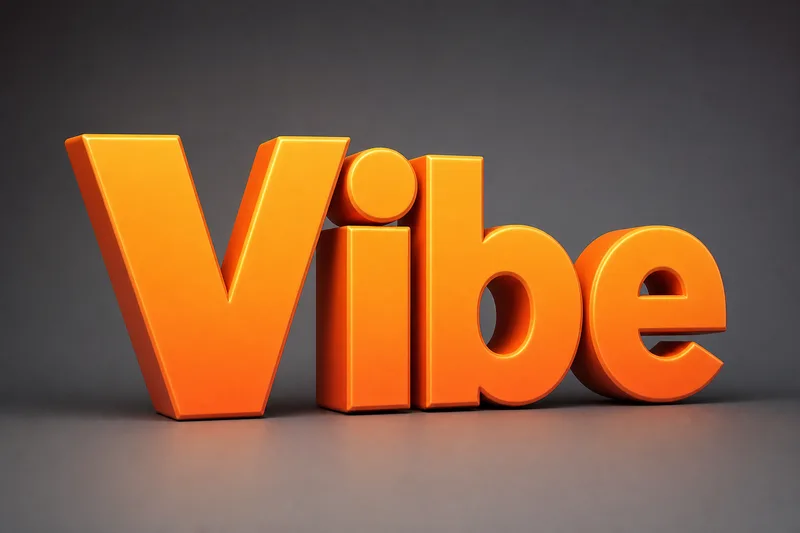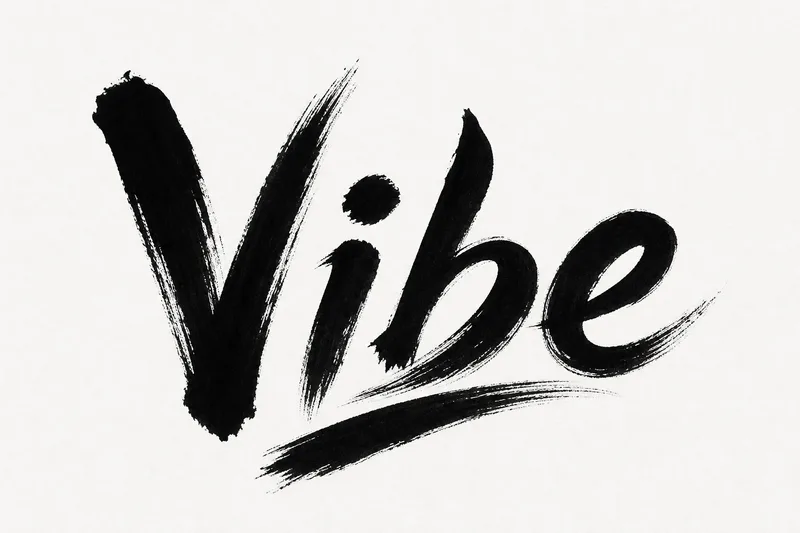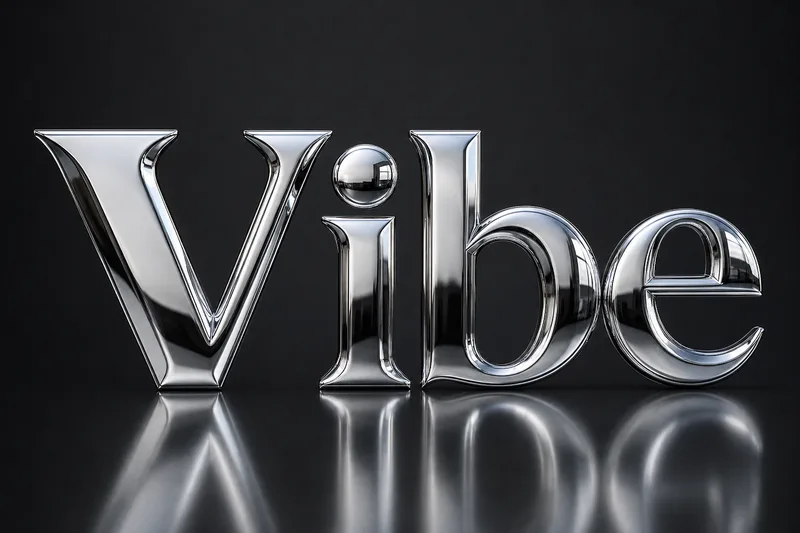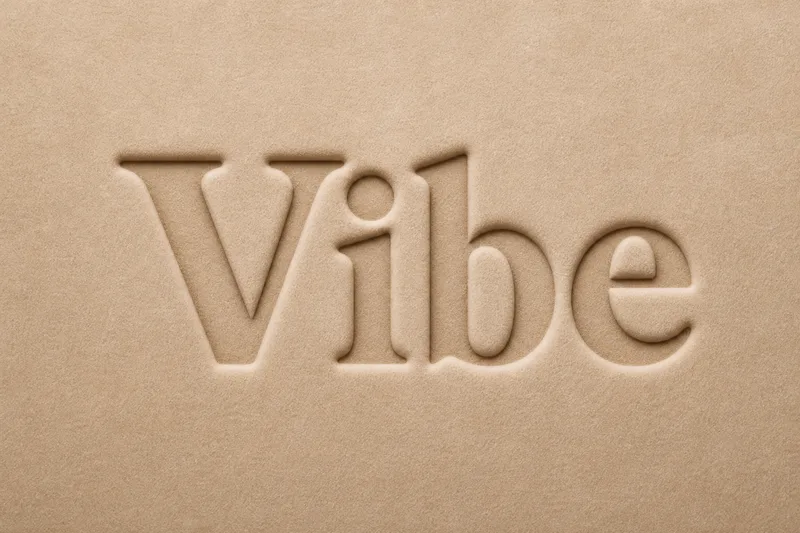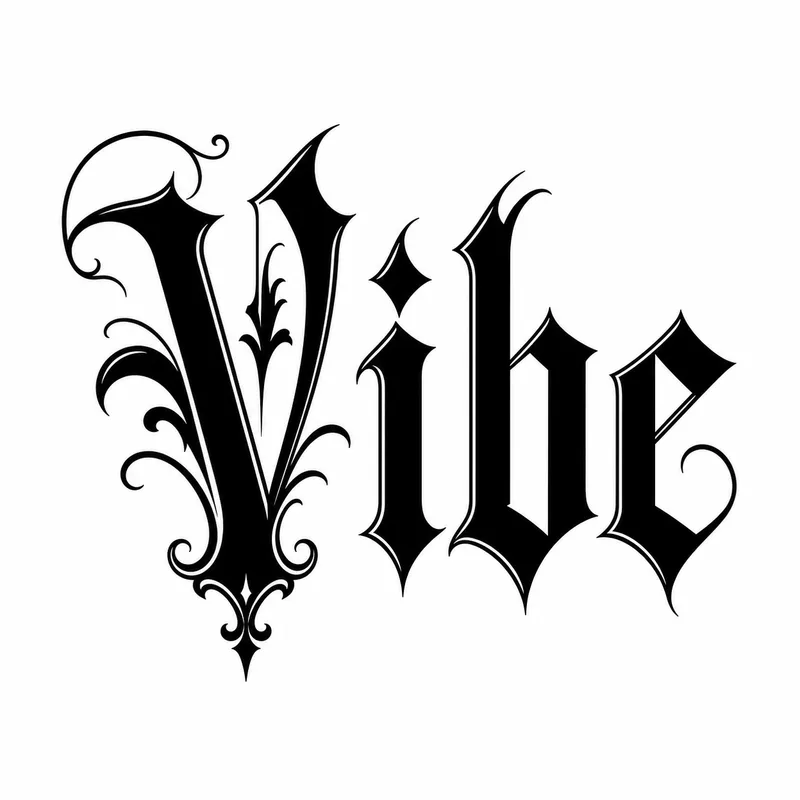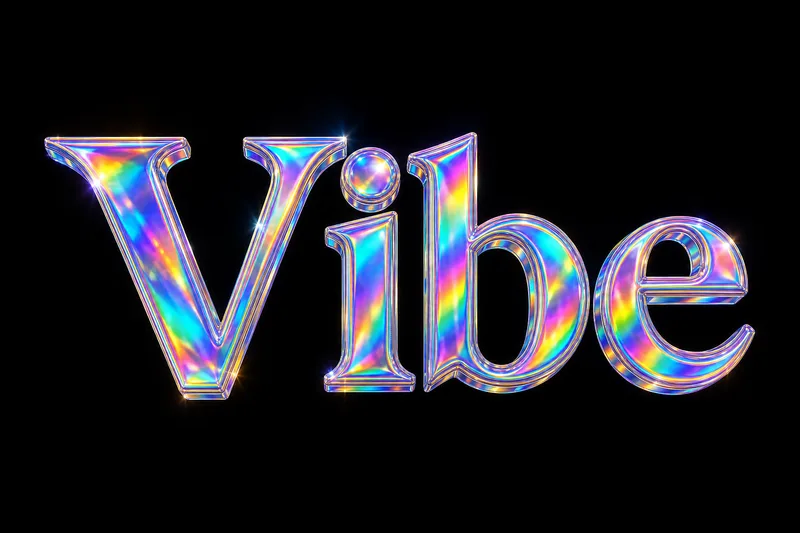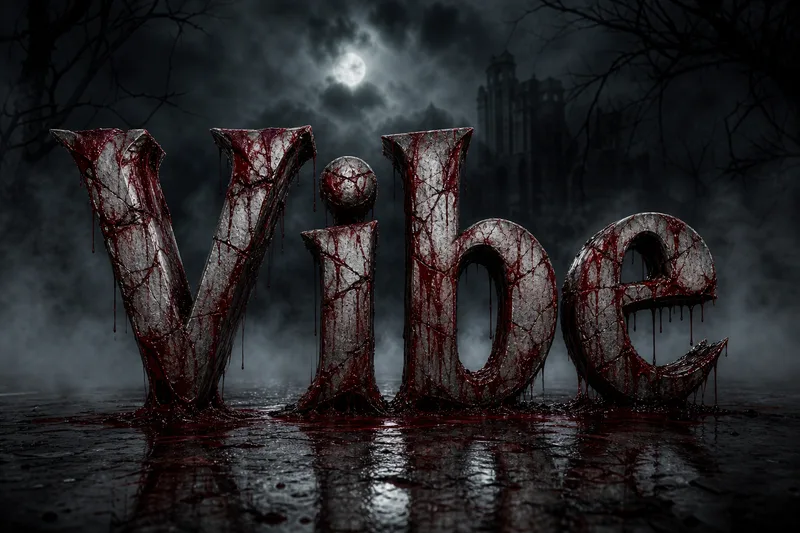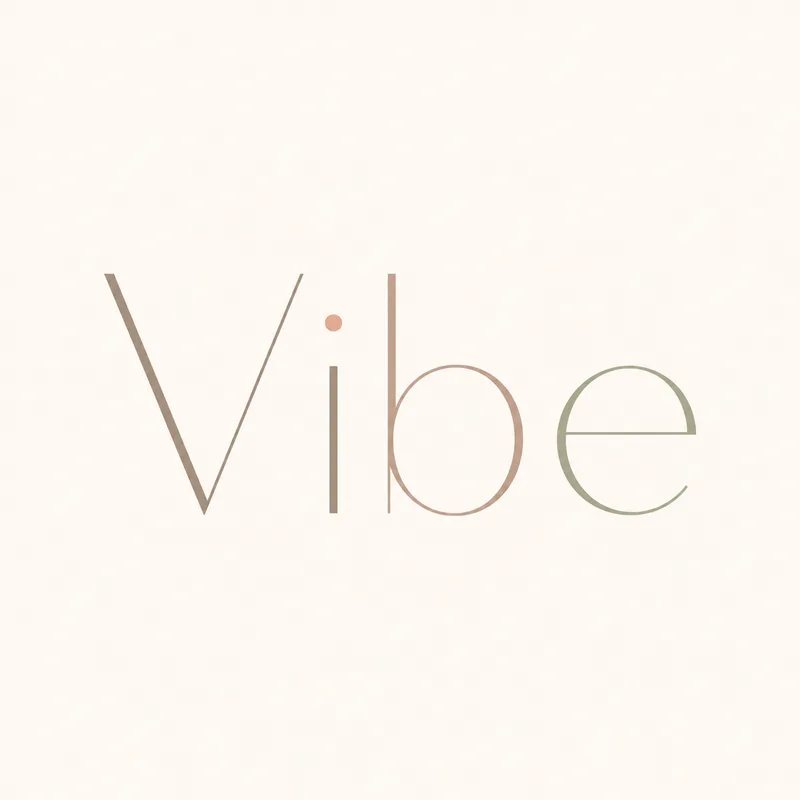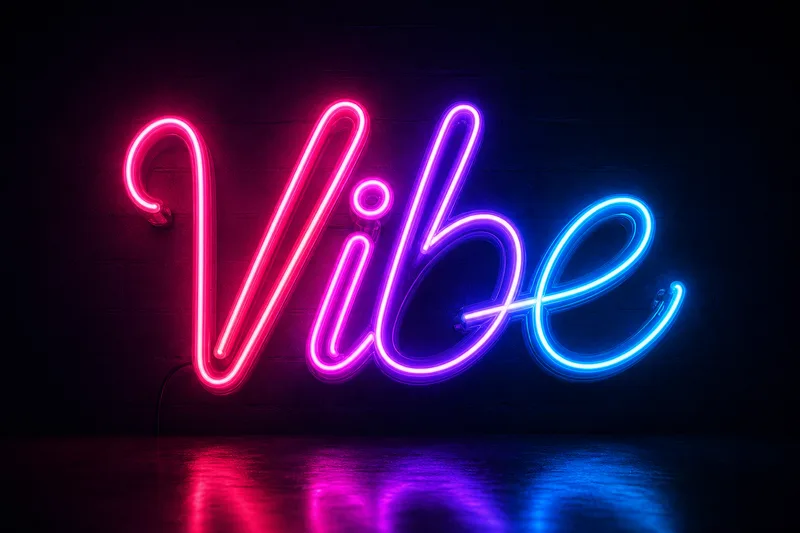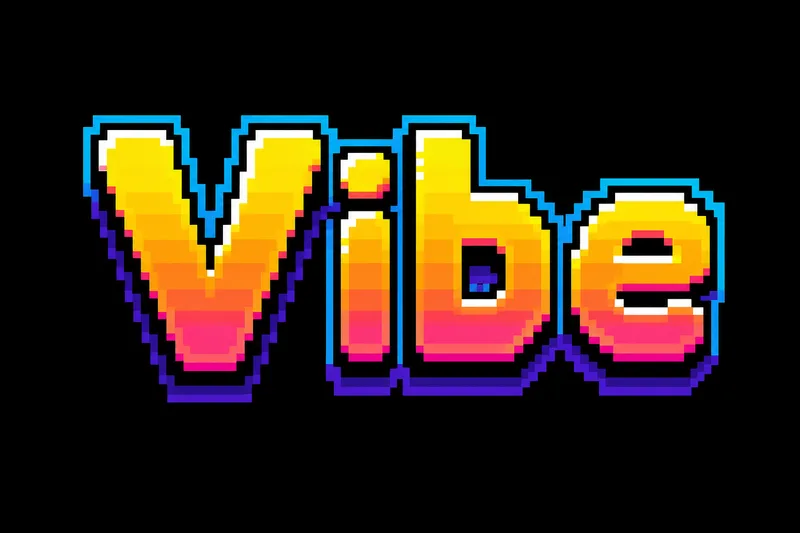
Fonts Made With This Generator
A handful of looks straight from the font generator, each one rendered from plain text. Type your own word and any of these styles is a single click away — tap a preview to see it full size.
Tattoo Lettering
Bold tattoo-style script rendered from plain text — a favorite for body-art mockups, band merch and gritty logos.
Calligraphy
Elegant calligraphy lettering for wedding invitations, quote prints and premium logos, generated in seconds.
Chrome 3D
Glossy chrome text with realistic reflections and depth — the Photoshop look without opening Photoshop.
Neon Glow
Bright neon-glow lettering that pops on dark thumbnails, posters and event flyers.
Graffiti
Street-style graffiti font for album covers, stickers, zines and gaming overlays.
Y2K Chrome
Retro Y2K chrome aesthetic with that early-2000s shine — perfect for nostalgic social posts.
Real Lettering From a Prompt
This isn't a unicode trick. Type your text, choose a style, and the AI font generator renders genuine artwork — crisp enough for logos, posters and merch. Start free, generate as many cool fonts as you want, and keep only the one that fits your project.
Hundreds of Cool Styles & Effects
A single generator covers tattoo, gothic, bubble and graffiti lettering plus chrome, gold 3D, fire, glitch, neon and Y2K text effects. Jump between looks without retyping a thing until your word matches the mood you're after.